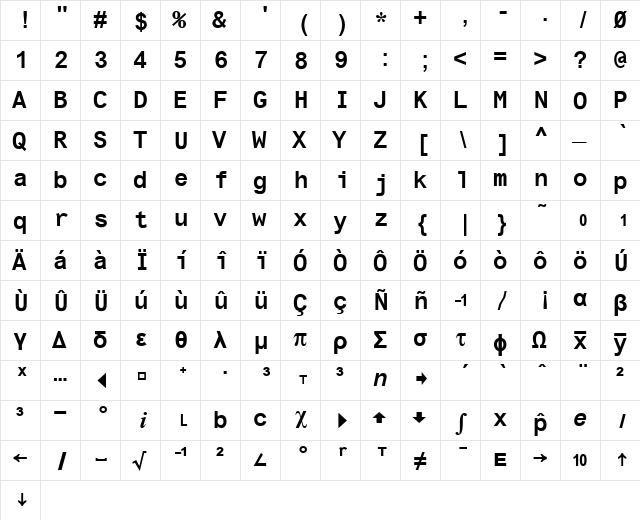
Ti73pc Bold
| Foundry | Monotype Typography |
Design Context for Ti73pc Typeface
Ti73pc takes a measured approach to typography — its balanced proportions and neutral character make it a reliable workhorse for both digital and print work. Its bold stroke weight gives it real presence on the page.